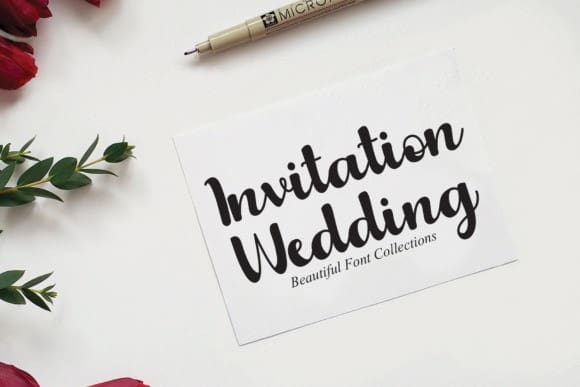
Bold Script Font
Bold Script Font is a trendy script font with a contemporary feel and perfect form. Not too thin and not too bold, balanced and varied, this font is designed to enhance the beauty of your projects.